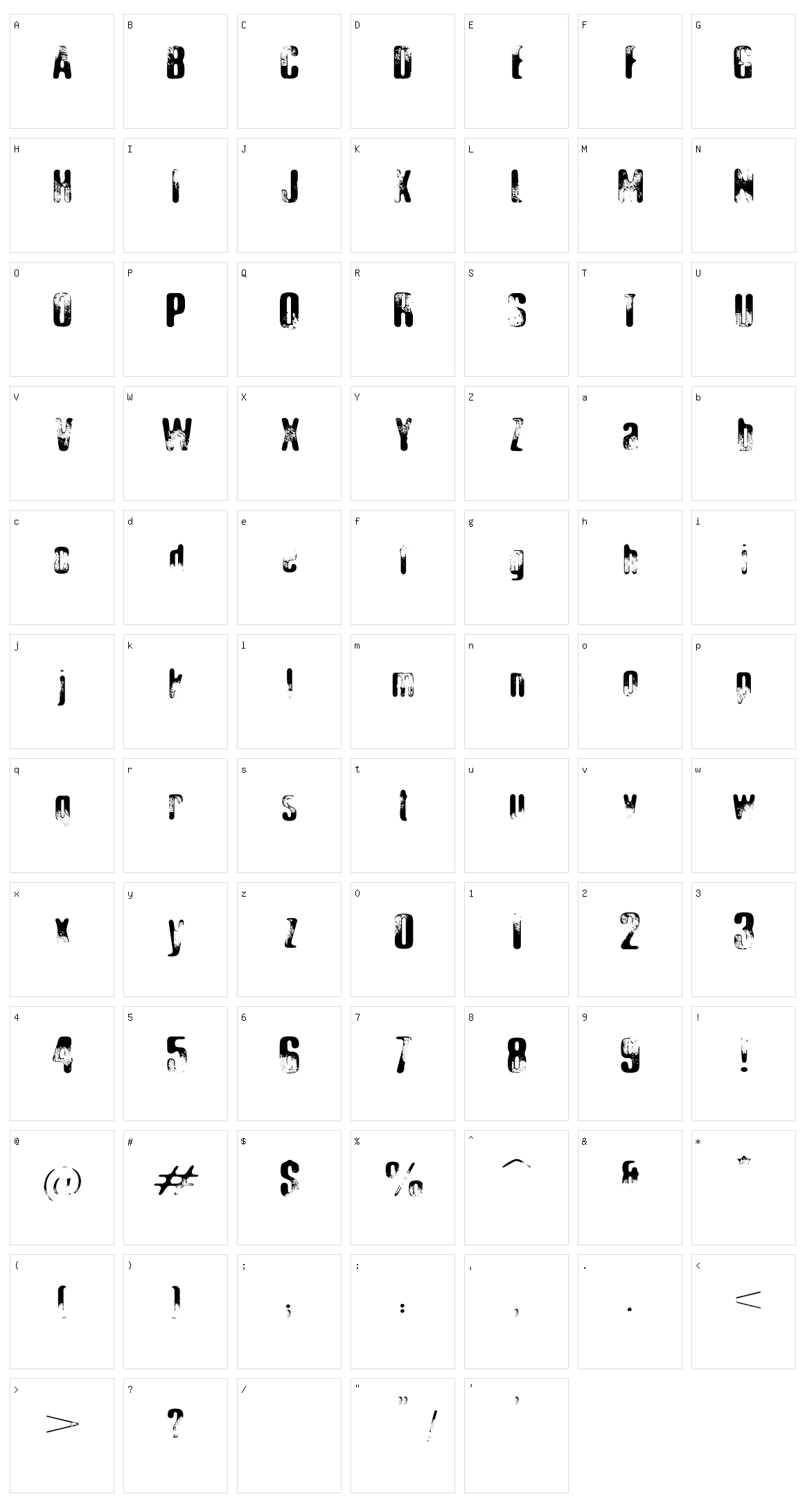
The free font Elliot's Bad Day is carefully designed by Pennyzine, showcasing a thoughtful balance of creativity and usability and falls under the Eroded font style. When you download the ZIP file, it contains only 140.66 KB of font files, making it lightweight and quick to download. Please review the license details below to understand permitted usage and distribution rights. If license information is not available, we recommend using this font for personal projects only or contacting the author directly for commercial usage permissions.